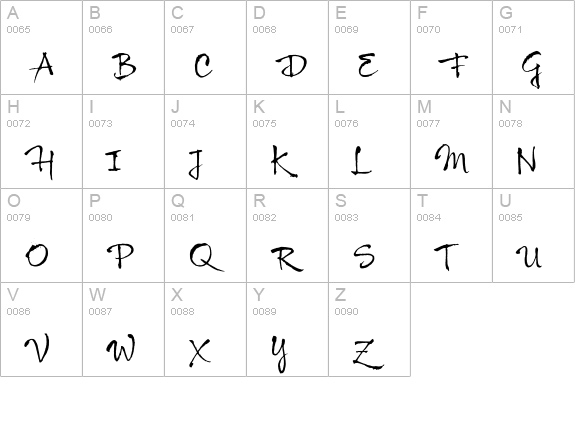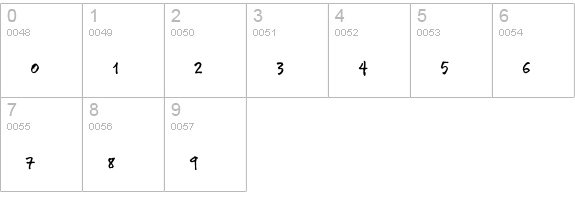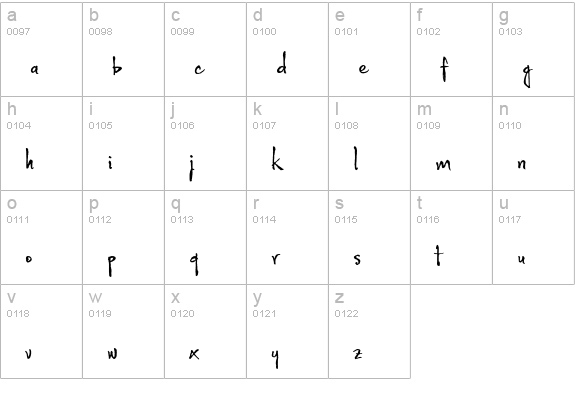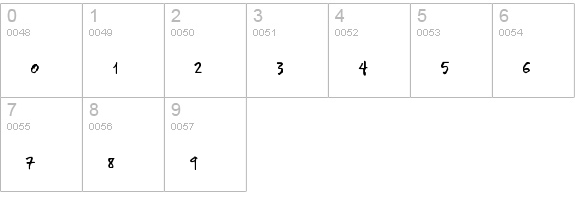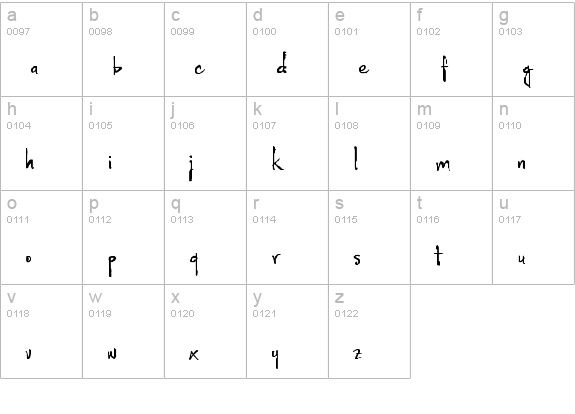
Wild Pen 4 font is a stunning and expressive handwritten typeface that exudes creativity and a sense of adventure. With its dynamic strokes and unique flair, this font is perfect for adding a touch of spontaneity and individuality to your designs. Whether you're working on branding, invitations, posters, or any other project that requires a personal touch, Wild Pen 4 font will surely make a statement. The best part? Wild Pen 4 font is available for free download at FontsMarket.com. Embrace the freedom to unleash your creativity with this versatile and captivating font that will bring your designs to life. Let your imagination run wild with Wild Pen 4 font and make your projects stand out from the crowd.